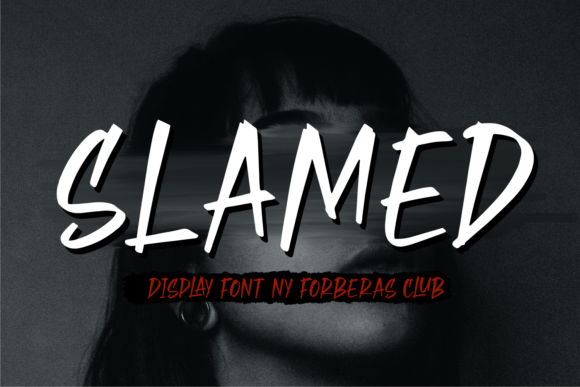
Journey into the realm of typography with Slamed Font, a handwritten script font that exudes elegance and charm. As a display font, it commands attention, transforming your designs into timeless works of art. Step into the world of Slamed and witness the magic it weaves.
Crafted by the renowned Forberas Club, Slamed Font captures the essence of classic beauty, reminiscent of a bygone era. Its graceful curves and sweeping strokes evoke a sense of nostalgia, while its modern touch ensures it remains relevant and stylish. Whether you're designing for events, wedding projects, fashion, apparel, logos, branding, or social media, Slamed Font is your trusted companion, elevating your creations to new heights.
With Slamed Font, you will embark on a creative journey like never before. Its versatility knows no bounds, adapting effortlessly to a myriad of projects. Unleash your imagination and let your designs flourish with Slamed Font's timeless allure. Add it to your fonts' library and witness the transformation it brings, igniting your creativity and leaving an enduring impression.
Elevate your designs with Slamed Font, the epitome of classic beauty and modern elegance. Its ability to transform ordinary into extraordinary is undeniable. Experience the allure of Slamed Font today and embark on a journey of typographic excellence.